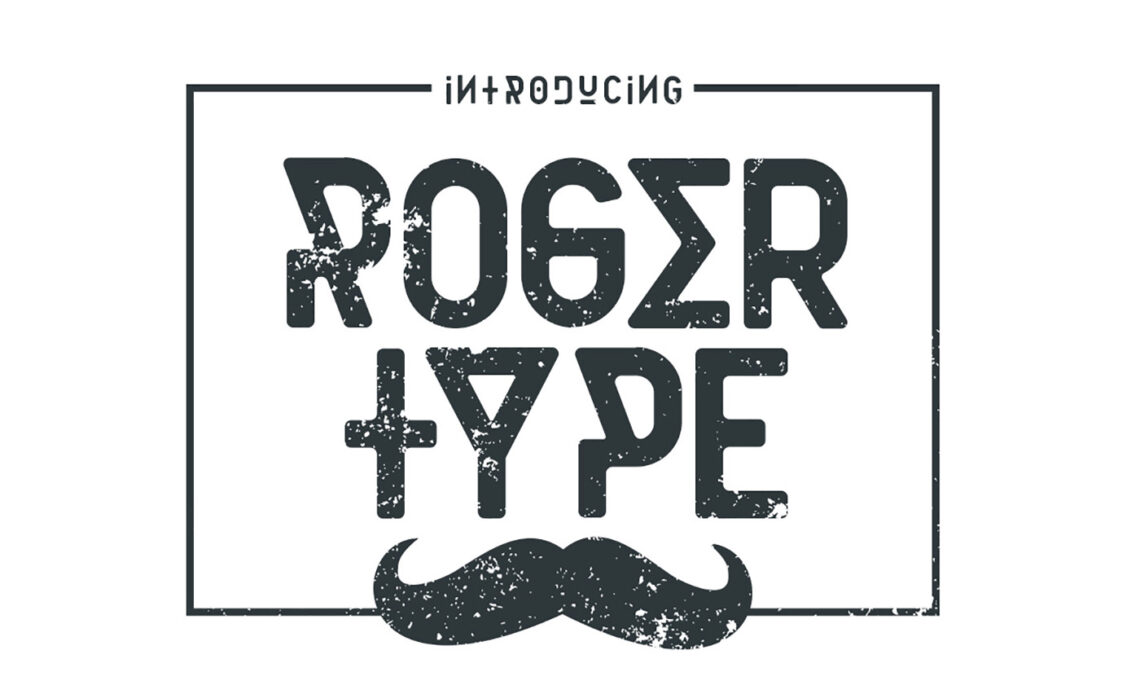
Say hello to Roger Type, the vintage decorative font that will add a touch of nostalgia to your designs. Each smooth edge is carefully crafted to simulate the look of classic typefaces, giving your work an authentic vintage flair. Bold and modern, Roger Type is guaranteed to be the standout font in your collection.
With its clean and simple lines, Roger Type is perfect for creating eye-catching headlines, stylish logos, and memorable packaging. Whether you're a designer, crafter, or simply looking to add some personality to your projects, Roger Type is the perfect choice.